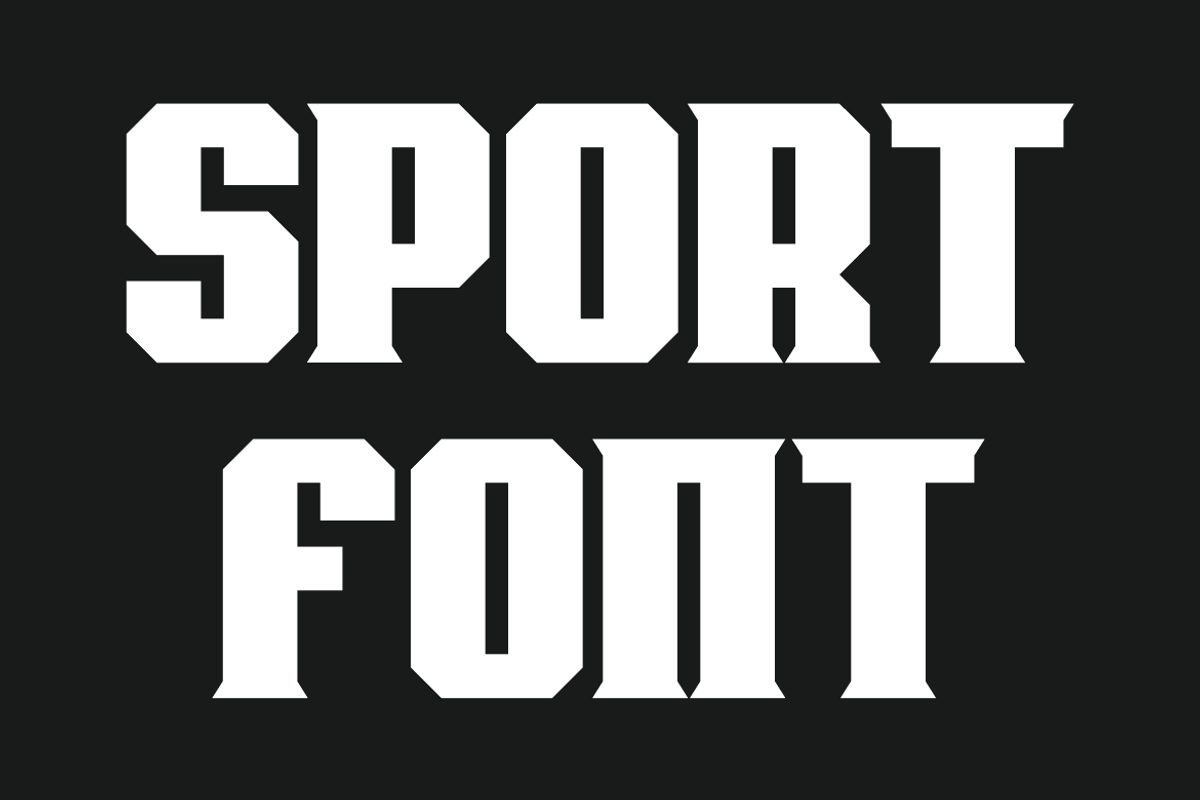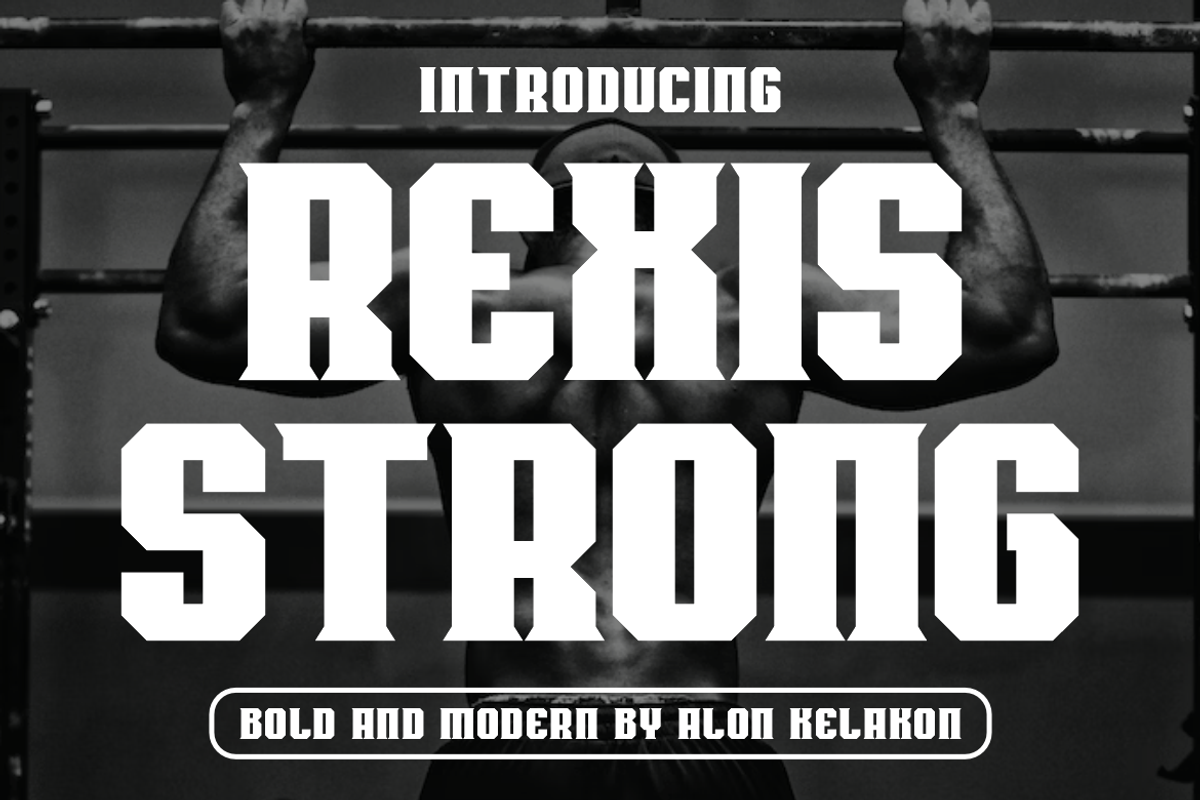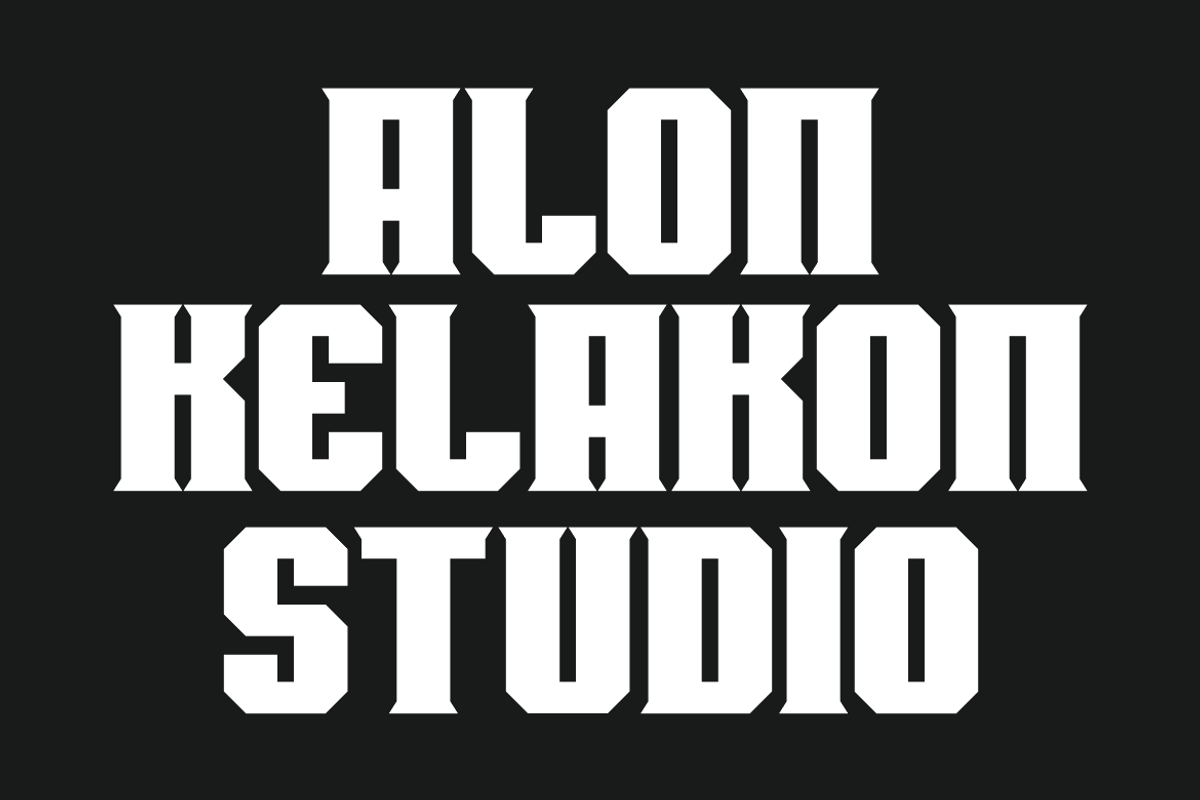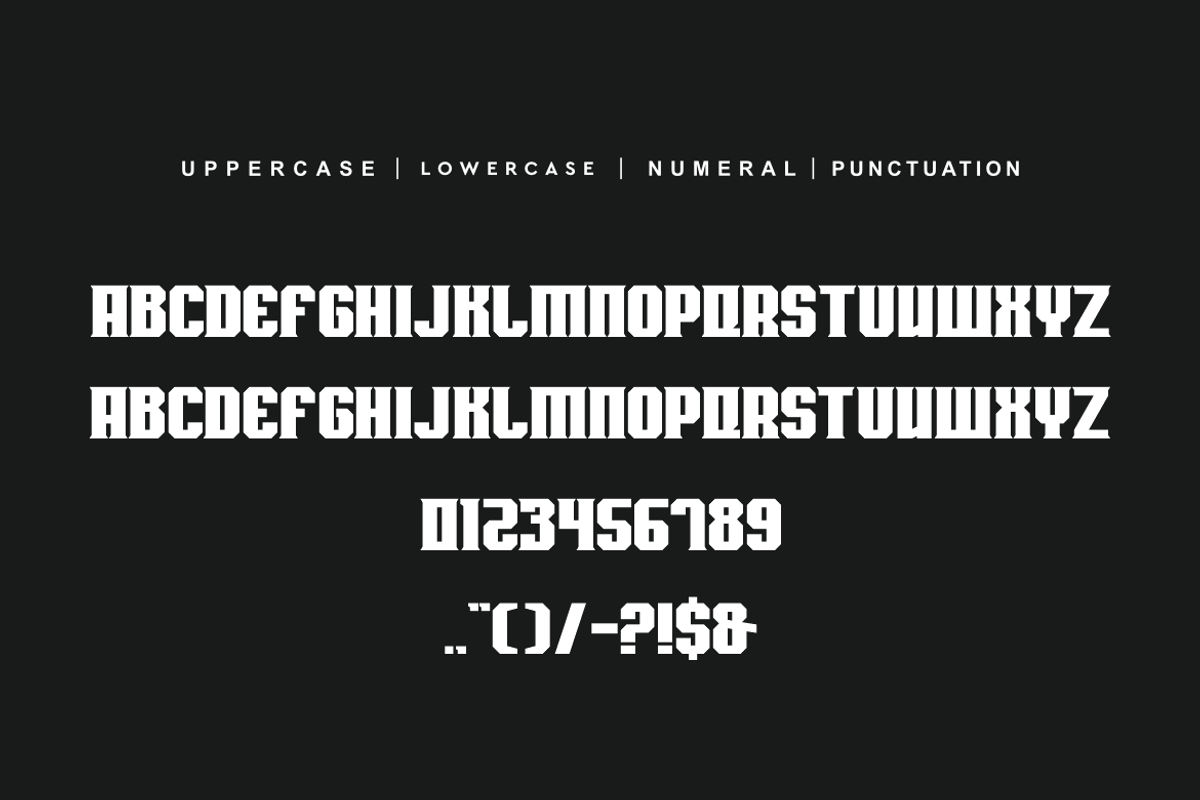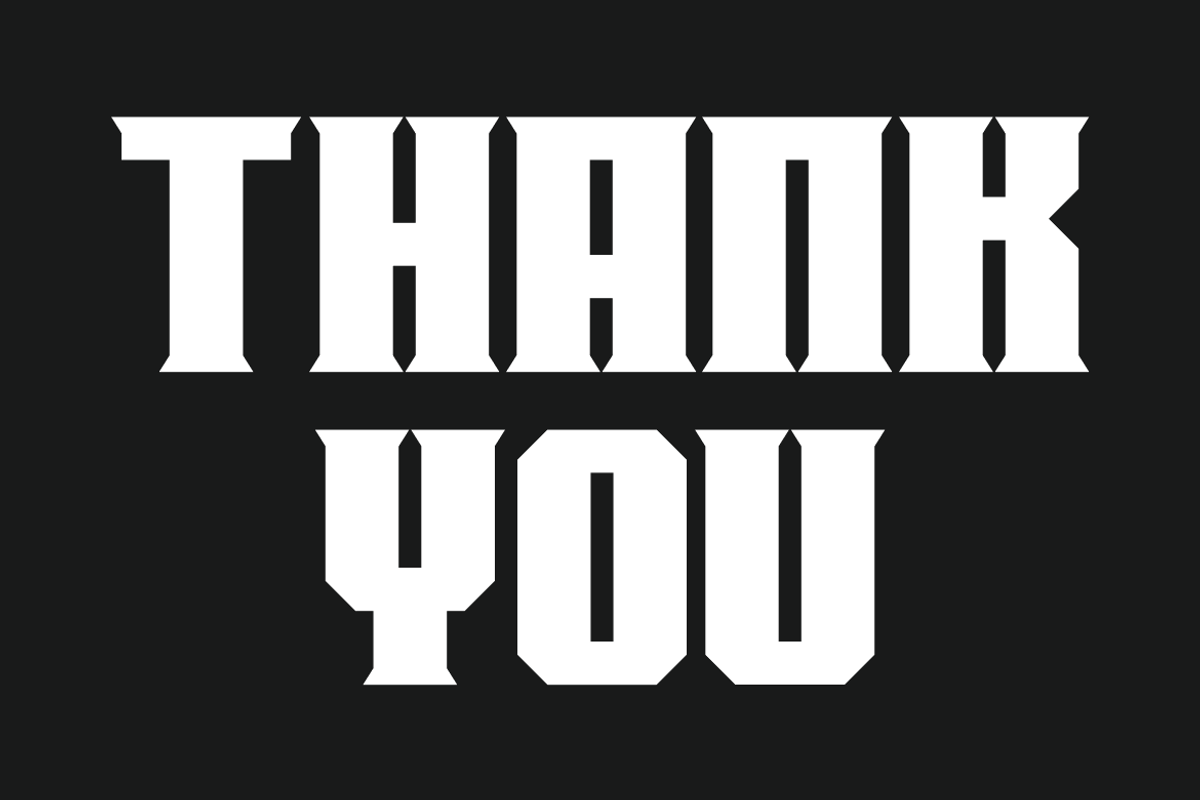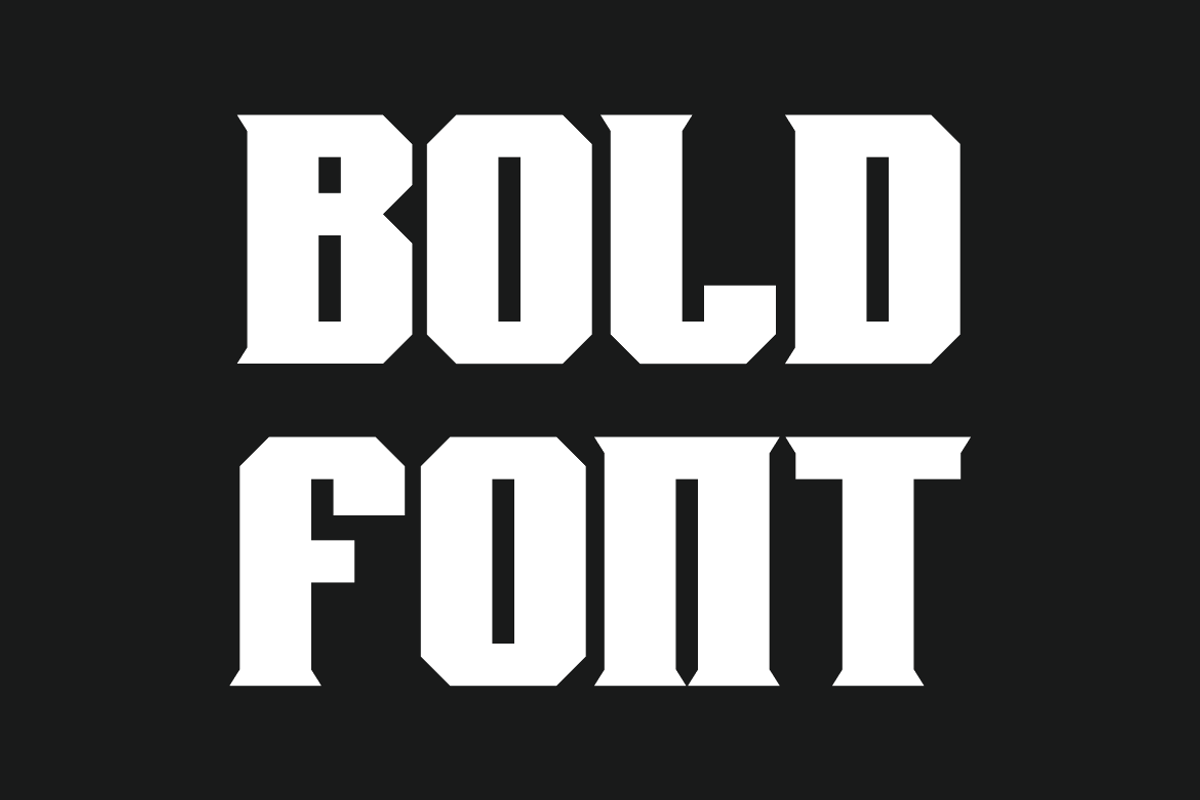
Rexis Strong
Rexis Strong Font is unique . Ready to use for your design like labeling, movie sceen, poster, movie title, gigs, album covers, logos, and much more.